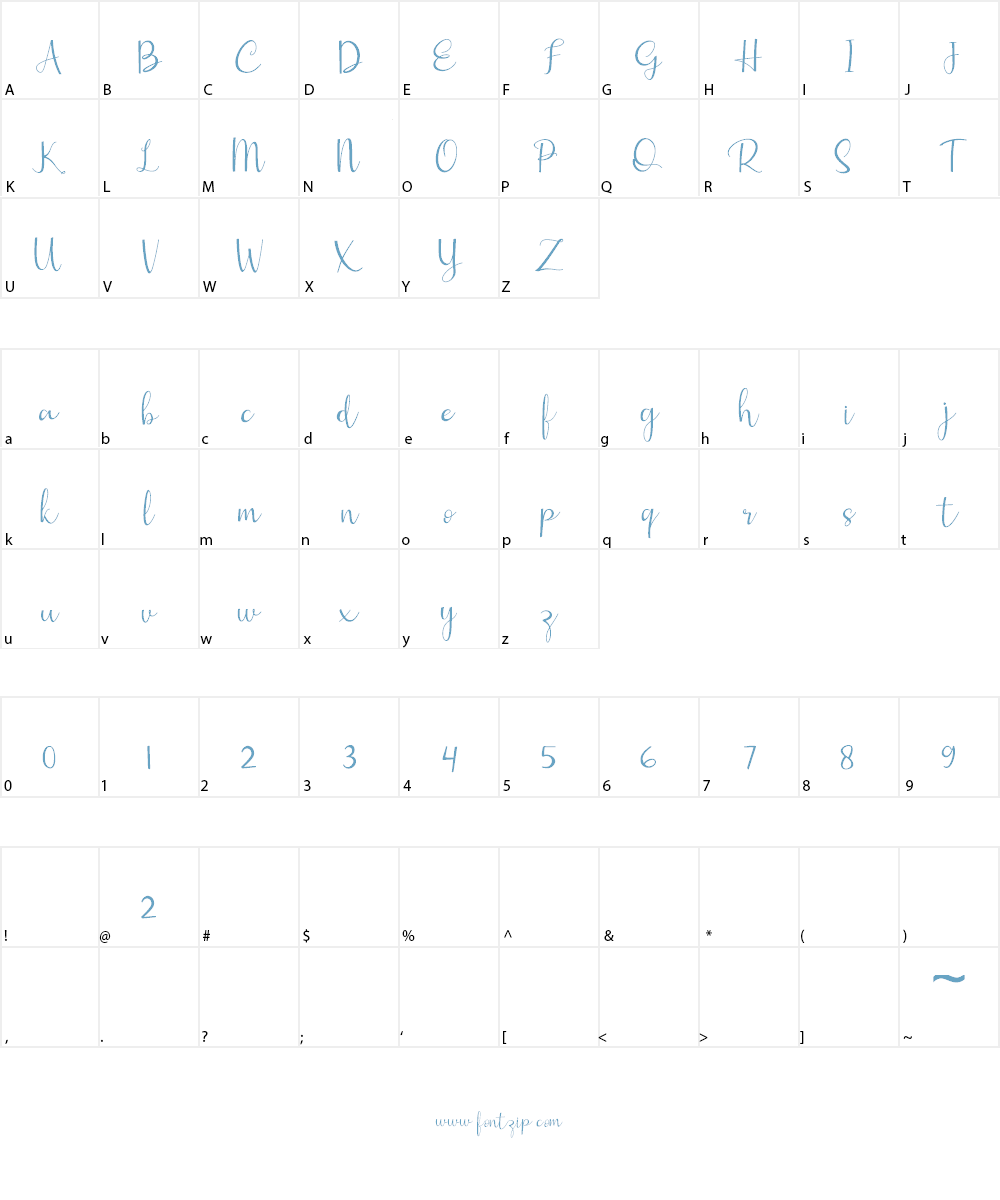
Fabullous is a casual modern script font. Fabullous is easy and simple to use and is perfect for branding, logos, greeting cards, wedding stationery, quotes and much more!